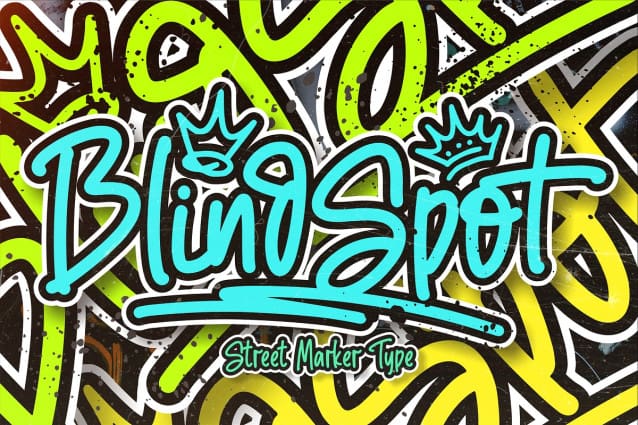
Blindspot Street Marker Font
Blindspot Street Marker Font is a sleek graffiti-inspired street marker font that merges bold urban aesthetics with refined design. Featuring clean shapes and excellent anatomy, this font ensures readability while maintaining a distinctive edgy vibe. Packed with features, including an array of ligatures and stylistic alternates, it offers versatility and creative freedom for various design projects. Perfect for magazines, posters, advertisements, skincare branding, and fashion, Blindspot brings a modern, dynamic energy to both contemporary and high-end designs.